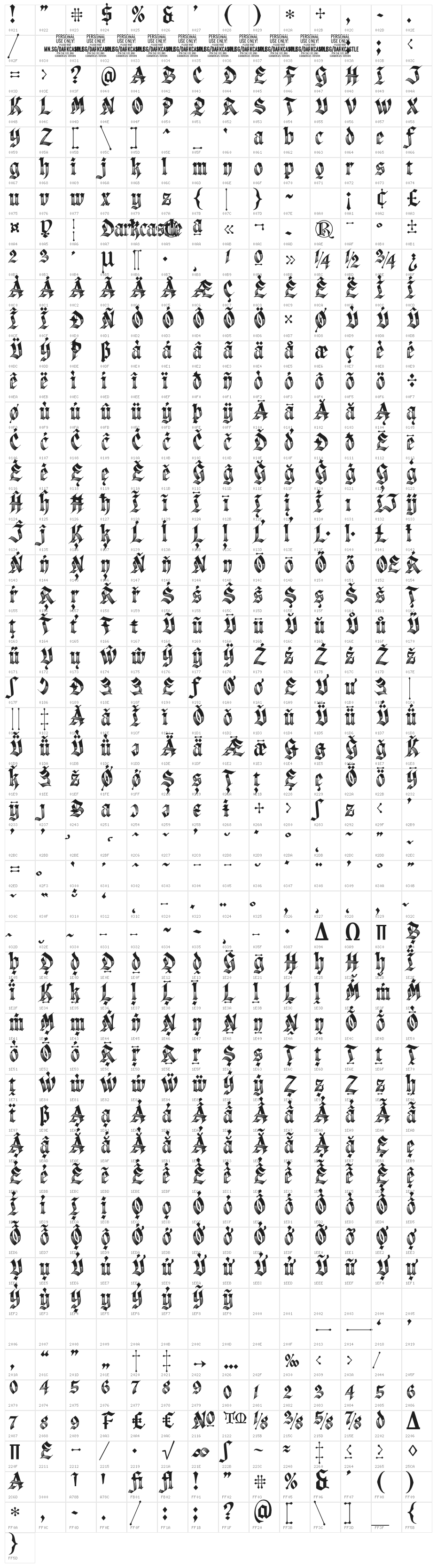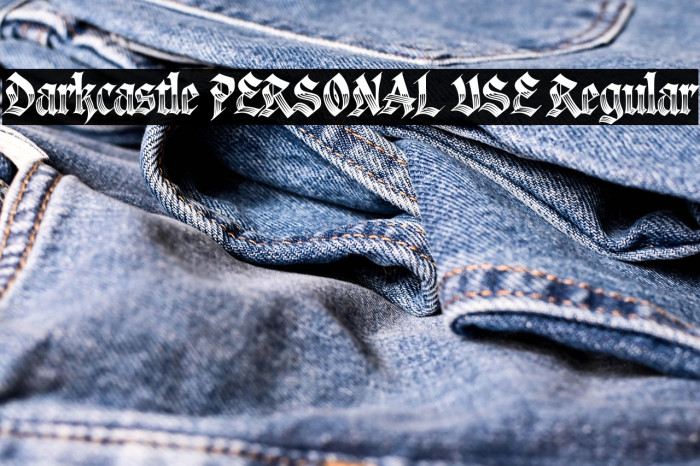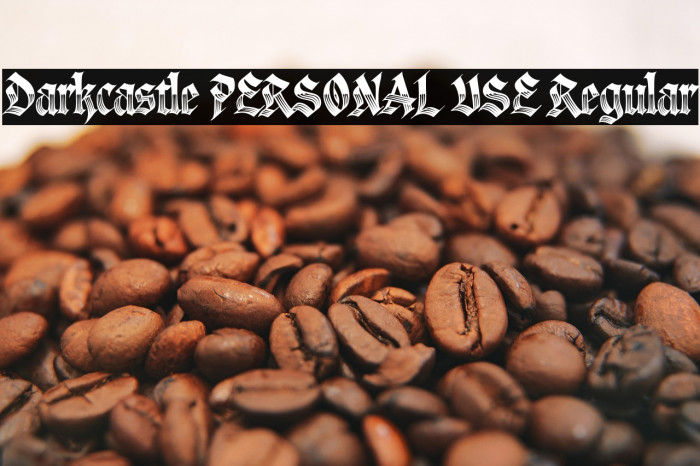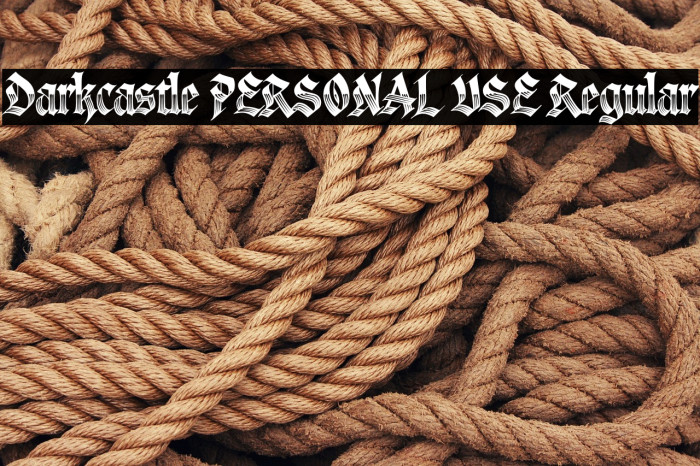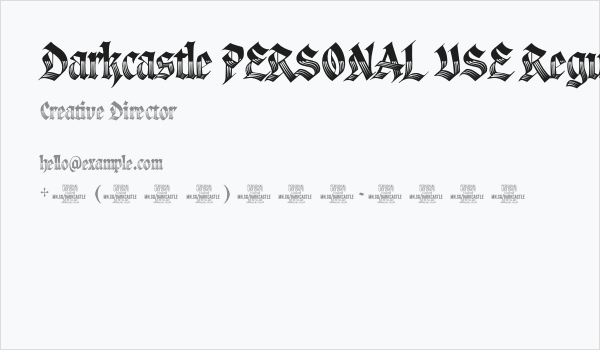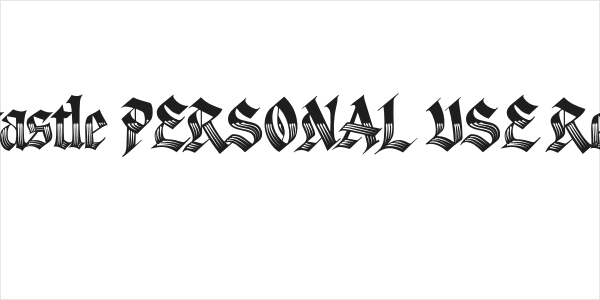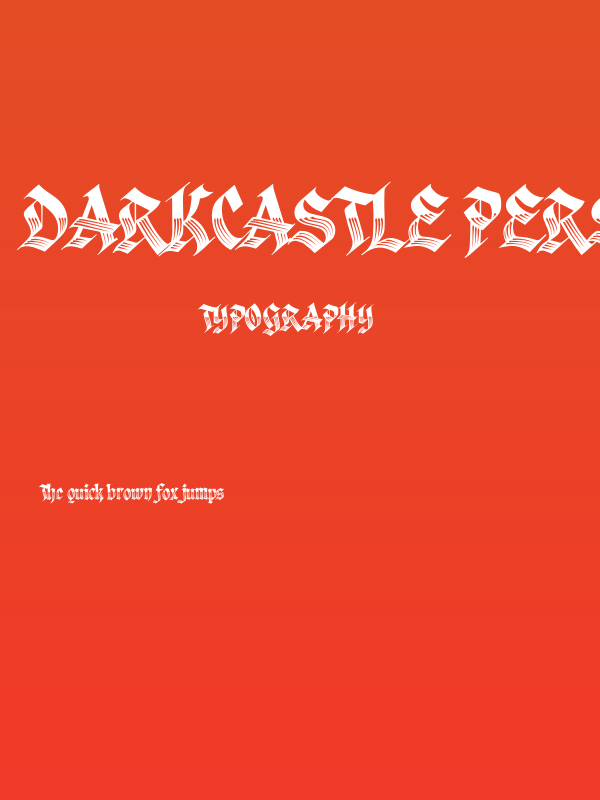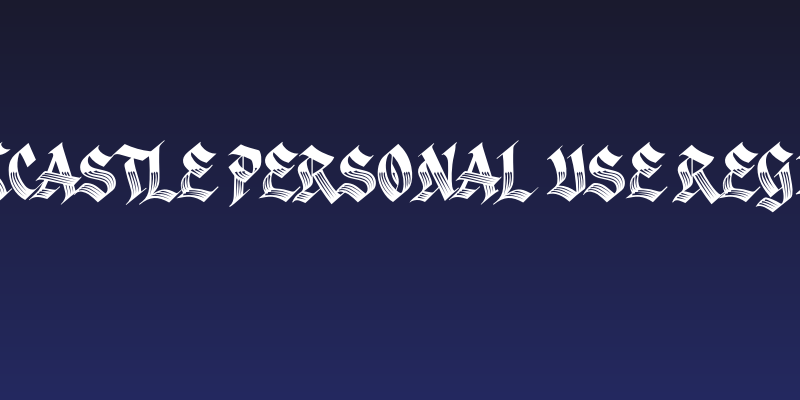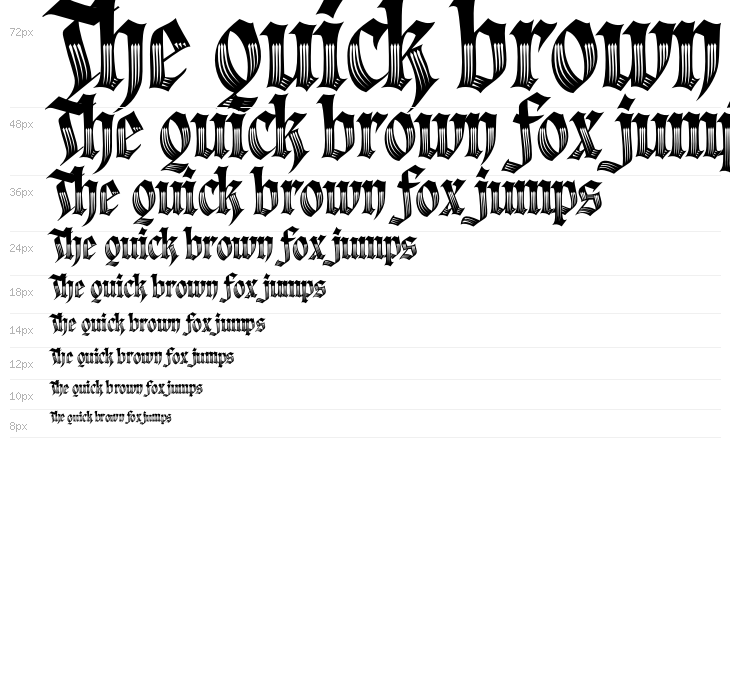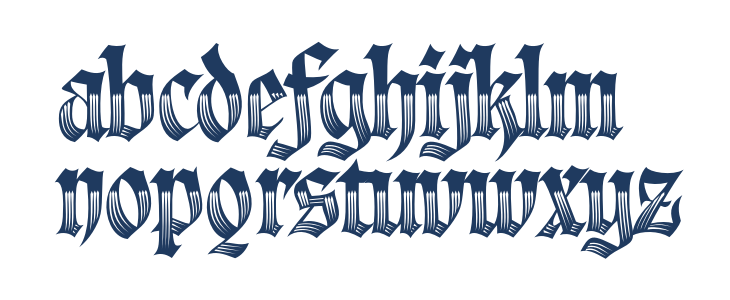
Darkcastle PERSONAL USE Regular Font
Darkcastle PERSONAL USE Regular Description
This font exhibits a bold and dramatic style, reminiscent of medieval script with a modern twist. The characters are intricately designed with sharp angles and strong vertical lines, giving it a gothic appearance. The uppercase letters are particularly elaborate, featuring ornate details that enhance their visual impact. The lowercase letters maintain the same stylistic elements, ensuring consistency throughout the typeface. The numbers and special characters are equally stylized, making them suitable for decorative purposes. This font's unique design is ideal for projects that require a touch of historical elegance and boldness.